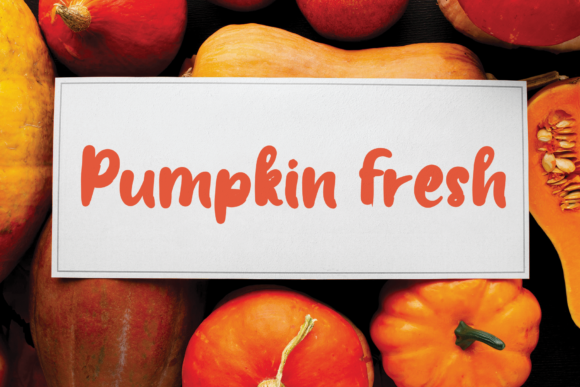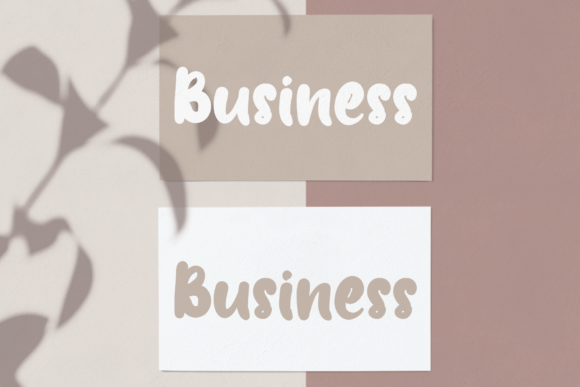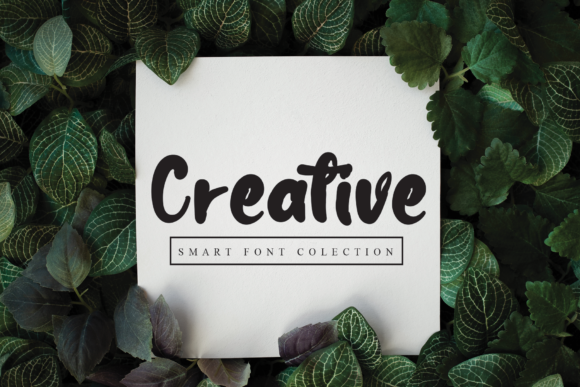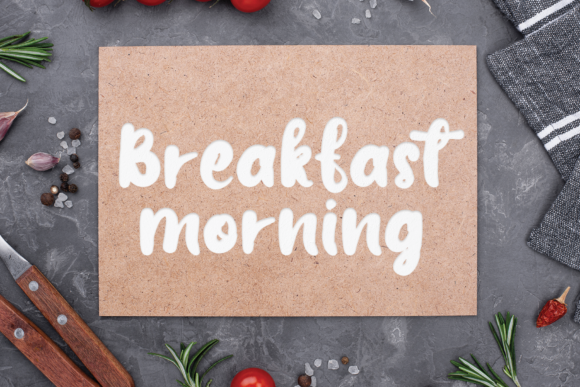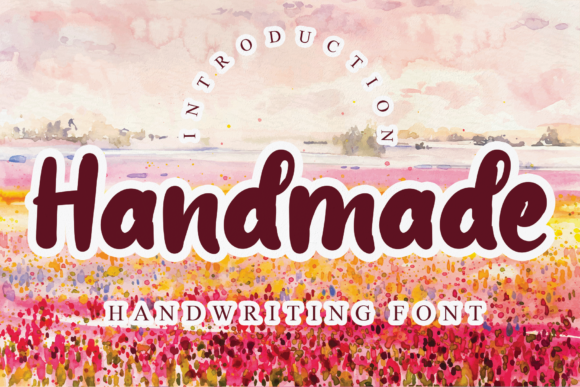
Introducing Handmade Font: The Perfect Choice for Romantic and Personalized Designs
Are you a designer or crafter looking for a font that can add a touch of romance and personality to your designs? Look no further than Handmade Font, a sweet and brushed handwritten font that’s perfect for creating beautiful and unique designs. In this article, we’ll take a closer look at Handmade Font, its features, and how you can use it to elevate your designs.
What is Handmade Font?
Handmade Font is a dainty and joyful handwritten font that’s designed to bring a touch of elegance and sophistication to your designs. With its delicate and cursive strokes, this font is ideal for creating romantic and personalized designs that will leave a lasting impression. Whether you’re designing wedding invitations, cards, or any other type of project that requires a personal touch, Handmade Font is the perfect choice.
Key Features of Handmade Font
- Handwritten style: Handmade Font has a beautiful handwritten style that’s perfect for creating personal and romantic designs.
- Dainty and joyful: The font’s dainty and joyful strokes make it ideal for creating designs that are both elegant and playful.
- Brushed texture: The font’s brushed texture gives it a unique and organic feel that’s perfect for creating handmade-style designs.
- Easy to read: Despite its delicate strokes, Handmade Font is easy to read and understand, making it perfect for creating designs that require a personal touch.
Use Cases for Handmade Font
Handmade Font is a versatile font that can be used for a variety of design projects. Here are some use cases where Handmade Font shines:
- Wedding invitations: Handmade Font is perfect for creating beautiful and romantic wedding invitations that will set the tone for the big day.
- Cards and stationery: The font’s delicate and cursive strokes make it ideal for creating cards and stationery that require a personal touch.
- Branding and packaging: Handmade Font can be used to create unique and eye-catching branding and packaging designs that will help your business stand out.
- Digital and print designs: The font’s versatility makes it perfect for use in both digital and print designs, from social media graphics to brochures and flyers.
Tips for Using Handmade Font
Here are some tips for getting the most out of Handmade Font:
- Use it with contrasting fonts: Pair Handmade Font with bold and contrasting fonts to create visual interest and hierarchy in your designs.
- Experiment with colors: The font’s brushed texture looks great with a variety of colors, so don’t be afraid to experiment and find the perfect combination for your design.
- Pay attention to spacing: Handmade Font’s delicate strokes can get lost if the spacing is too tight, so make sure to adjust the spacing to create a clean and elegant look.
Handmade Font is a beautiful and versatile font that’s perfect for designers and crafters looking to add a touch of romance and personality to their designs. With its delicate and cursive strokes, brushed texture, and easy-to-read style, this font is ideal for creating unique and eye-catching designs that will leave a lasting impression. Whether you’re designing wedding invitations, cards, or any other type of project that requires a personal touch, Handmade Font is the perfect choice.